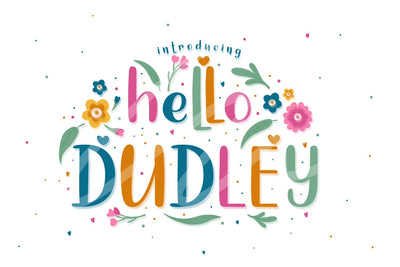
Hello Dudley
Introducing Hello Dudley Font by Tlatoustype
Hello Dudley is a Modern Handwritten Font.
Hello Dudley is perfect for book cover, product packaging, branding project, megazine, social media, wedding, or just used to express words above the background.